Counter
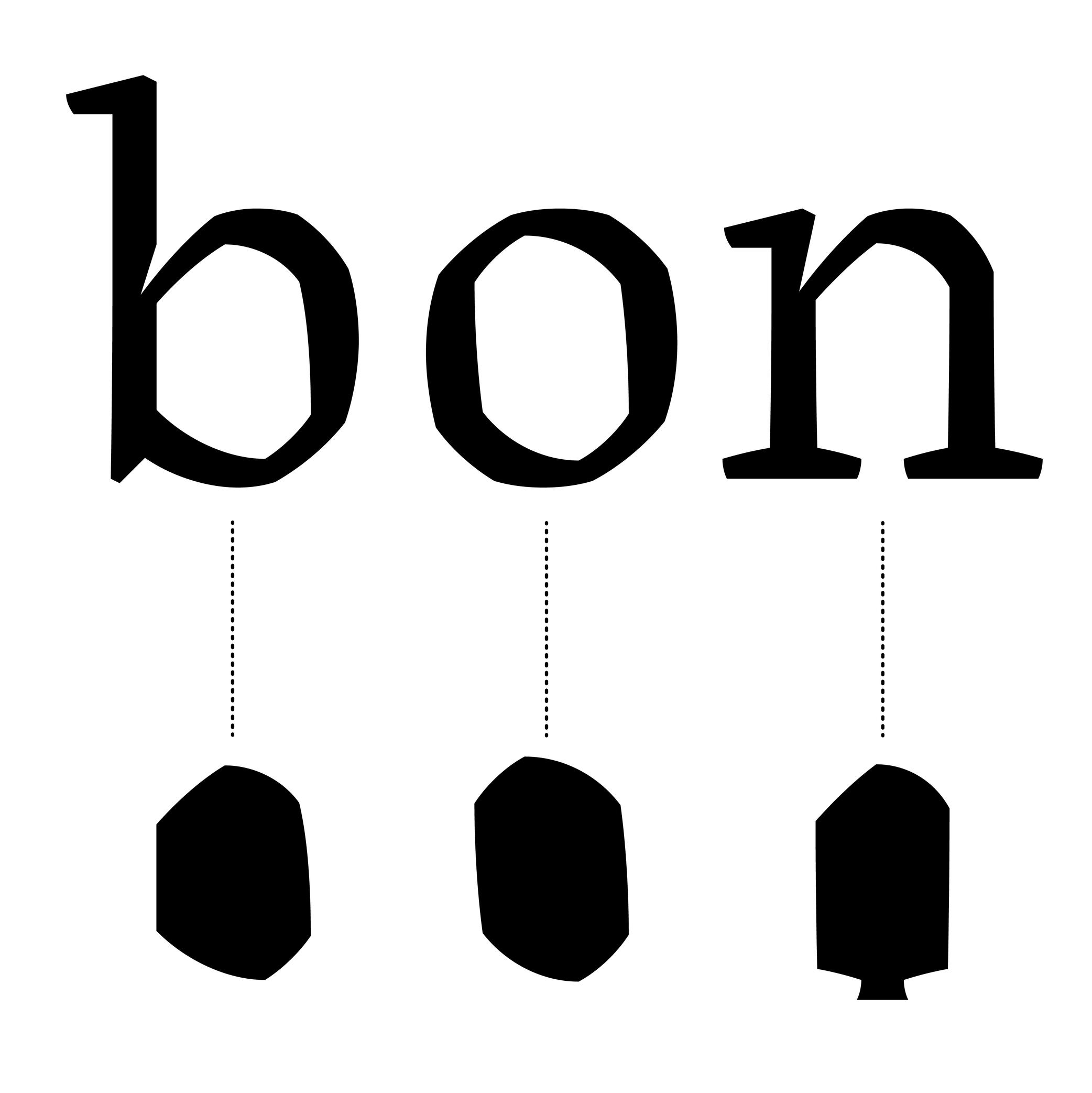
Also called counterform.
A counter is the negative shape inside a glyph with an enclosed form, either entirely closed (such as b) or partially open (such as n).
This term comes from the “counterpunch.” Punchcutters used counterpunches to depress the white spaces inside letterforms while making the master punches for metal-type sorts.
Concretely, they would strike the counterpunch into a larger steel punch. Afterward, the punchcutter filed down the outside of the punch, creating the letterform’s exterior contour.
Punchcutters could reuse a counterpunch on any related letterforms in the typeface, keeping a consistent look throughout an entire font.
In digital type design for Latin scripts, it is important to keep this consistency as well, with various techniques, such as putting the component of a reference letter in the background or copy-pasting the contours of the counter, or making sure that they visually look consistent by placing them next to each other while designing the shapes.